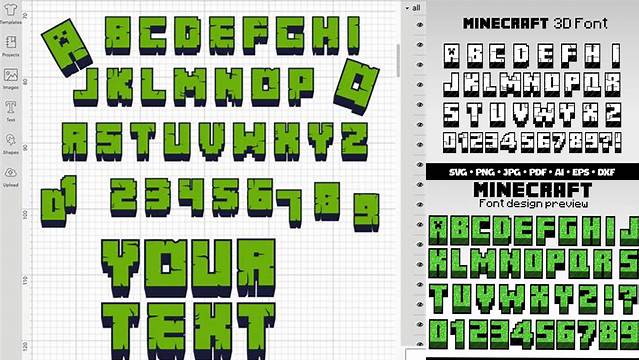
Create Awesome Minecraft Fonts With SVG Generators!
Hey, gamers! Ever wanted to spice up your Minecraft creations with custom text that perfectly matches the blocky aesthetic? Well, you're in luck! We're diving deep into the world of Minecraft Font Generator SVG tools. These nifty online tools allow you to create text in the iconic Minecraft font, which you can then use to add a unique touch to your maps, builds, and even your YouTube thumbnails. Get ready to level up your Minecraft game with some sweet custom fonts!
Minecraft Font Generator: Unleash Your Creativity
Minecraft font generators are your secret weapon for crafting eye-catching text within the game and for various creative projects. They take the hassle out of manually creating each letter and number block by block. Instead, you simply type in your desired text, and the generator spits out a perfectly rendered Minecraft-style font. The best part? These generators often offer customization options. You can adjust the size, color, and sometimes even the font style to match your specific needs. Whether you're building a grand castle with a custom sign or creating a cool logo for your Minecraft-related content, a font generator is an essential tool.
These tools are also incredibly versatile. You can use the generated fonts for everything from in-game signs and banners to designing graphics for your streams and videos. Imagine having a unique logo that perfectly captures the essence of your Minecraft gameplay. Or perhaps you want to create a series of custom achievements that are displayed on your screen during a game. A Minecraft font generator can bring these ideas to life. The user-friendly nature of these generators makes them accessible to both experienced builders and newcomers alike. You don't need any prior design experience to create professional-looking text.
Furthermore, these font generators are constantly evolving, with developers adding new features and customization options. Some generators allow you to export the font in various formats, like PNG or SVG. This expands their usability, allowing you to integrate the fonts seamlessly into other design software. You can even use them to create personalized merchandise, such as t-shirts and posters, that feature your favorite Minecraft creations and text. They provide a fun and creative way to engage with the Minecraft community and add a personal touch to your projects.
Minecraft Text Generator: Your Gateway to Blocky Words
If you're looking to bring that iconic blocky style to your text, a Minecraft text generator is precisely what you need. These tools are designed to transform regular text into a Minecraft-themed font, letting you easily integrate it into your builds, presentations, or even your online profile. They are usually incredibly user-friendly. You type your text and the generator instantly converts it into a pixelated format, mimicking the aesthetic of the in-game font. Some generators offer even more features.
With a Minecraft text generator, you are no longer limited by the default font of Minecraft. You can use the generated text for various purposes. Creating eye-catching banners or signs within your game becomes a breeze. Imagine building a shop and clearly displaying its name using custom text or crafting a message that really stands out on your server. The blocky style of the Minecraft font is instantly recognizable and adds a touch of nostalgia to your designs. Whether you are a seasoned builder or a casual player, using a Minecraft text generator is a great way to express your creativity and individuality in the game.
The versatility of these generators extends beyond in-game use. You can use the generated fonts for social media posts, YouTube thumbnails, and other graphics. This allows you to create a unified theme across all your Minecraft-related content, making your brand more recognizable and engaging. These generators are often free and easy to use, requiring no specific software or design skills. This is why they are so popular in the Minecraft community. The blocky font style will help grab the attention of viewers and players instantly.
How to Generate Minecraft Font Online
Generating a Minecraft font online is a straightforward process, even for beginners. There are numerous websites and tools designed specifically for this purpose. The steps typically involve visiting a font generator website, entering your desired text into the text box, and adjusting the font size or other settings as needed. The generator then automatically renders your text in the Minecraft font. Afterward, you can usually download the generated image or copy the code to be used.
The ease of use is one of the most attractive aspects of these online tools. Many font generators have an intuitive user interface, making it simple to create custom text without any technical knowledge. This accessibility has made them a popular resource for Minecraft players of all skill levels, from casual builders to experienced content creators. These tools save considerable time and effort compared to manually recreating the font or learning complex design software.
The best part is, there are numerous options available. You can easily find a font generator that meets your specific needs and preferences. Some generators provide additional customization options, like choosing different block colors or font styles. This ensures you can tailor the font to match your unique style. Once you generate your font, you can then use it to create eye-catching banners, logos, and other graphics. These elements can elevate your Minecraft builds and enhance your overall gaming experience. They also allow you to add a personal touch to your creations.
Using Minecraft Font in Adobe Photoshop
Incorporating the Minecraft font in Adobe Photoshop is a straightforward process that can significantly enhance the visual appeal of your projects. If you've downloaded the font as a TTF or OTF file, you'll first need to install it on your system. Once the font is installed, open Adobe Photoshop and create a new document. Select the